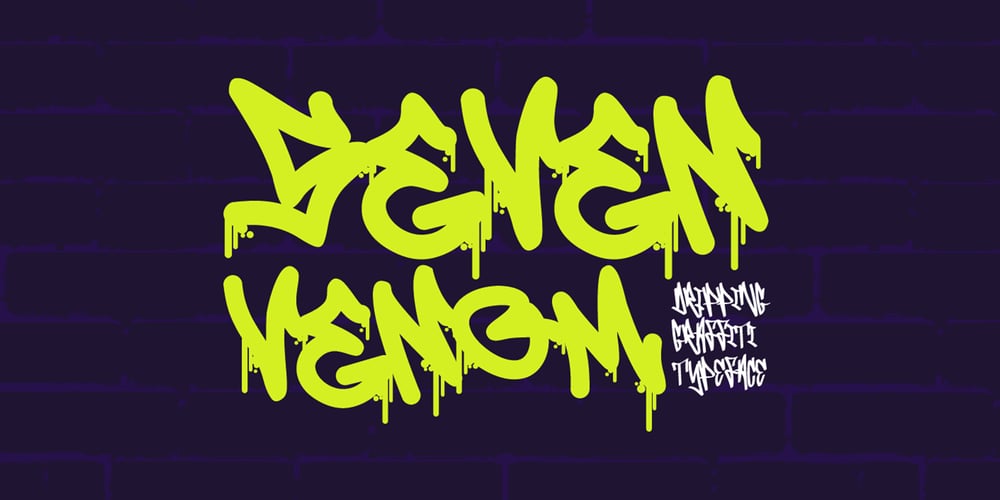
Seven Venom Drip Font Family was designed by Sipanji and published by Sipanji21. Seven Venom Drip contains 2 styles and family package options. Seven Venom is a striking graffiti monoline font with a unique dripping effect, available in two styles: drip and regular. Its edgy, street-style aesthetic makes it perfect for a wide range of creative projects, especially those with urban, graffiti, or Halloween themes. The drip style adds a bold, raw, and rebellious touch, while the regular style offers a cleaner, straightforward graffiti vibe. Whether you’re working on posters, streetwear designs, or spooky Halloween graphics, Seven Venom brings a cool and gritty character to your designs, making them stand out with a distinct street and urban influence.